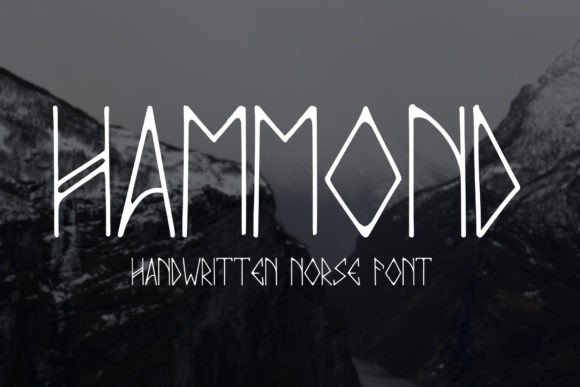
Journey through the ancient Norse lands, where a tale of elegance and modernity unfolds, introducing Hammond Font, the display font that echoes the whispers of the past while embracing the present. Inspired by the traditional Norse alphabet, Hammond Font is a symphony of grace and innovation, a fusion of heritage and progress.
Immerse yourself in a world of captivating designs, where every letter dances with a unique and elegant stroke, whispering stories of old and inviting imaginations to soar. Hammond Font is the perfect canvas for your creative expressions, allowing you to craft designs that radiate sophistication and timeless charm.
Step into the realm of elegance, where simplicity meets complexity in perfect harmony. Hammond Font's delicate curves and intricate details add a touch of refinement to every project, transforming ordinary words into captivating works of art. Whether you're designing logos, posters, or invitations, Hammond Font elevates your creations to new heights of visual appeal.
Embark on a journey to the future, where innovation meets tradition, where the classic Norse alphabet is reborn in a contemporary masterpiece. Hammond Font seamlessly blends the old and the new, creating typography that resonates with your audience. Its modern aesthetic ensures that your designs stand out from the crowd, leaving a lasting impression on all who behold them.
Discover a world of possibilities, where creativity knows no bounds. Hammond Font's versatility is its essence, effortlessly adapting to a myriad of design styles and themes. Unleash your imagination and explore the infinite possibilities that await you. Whether you're crafting elegant wedding invitations, bold marketing campaigns, or eye-catching social media graphics, Hammond Font is your trusted companion, guiding you towards design excellence.